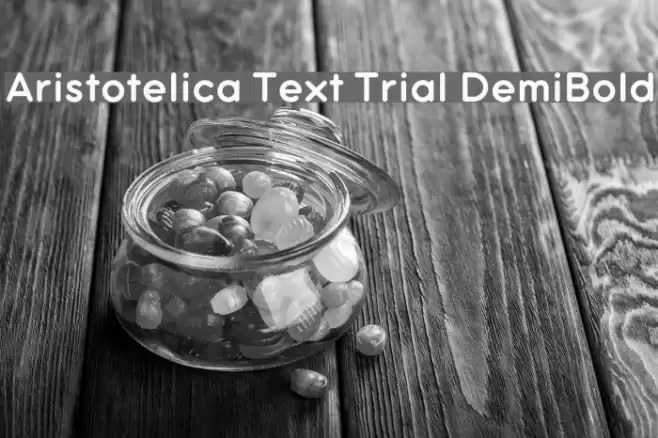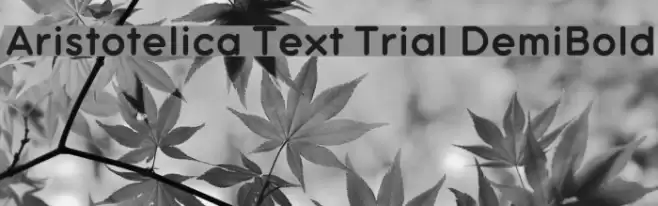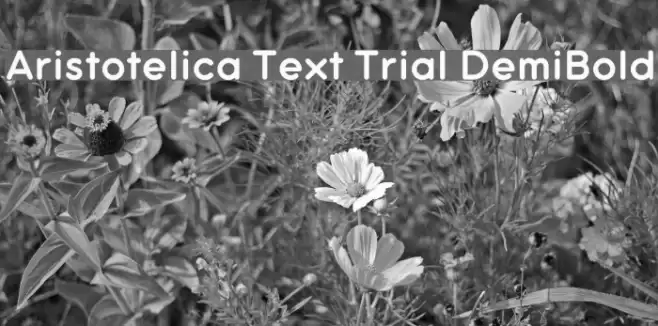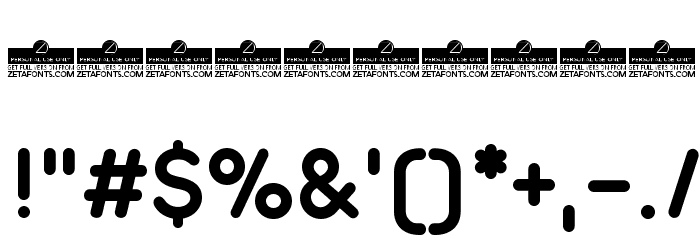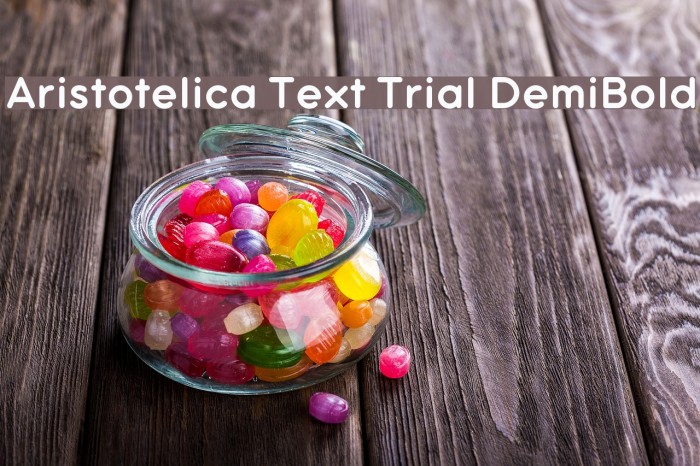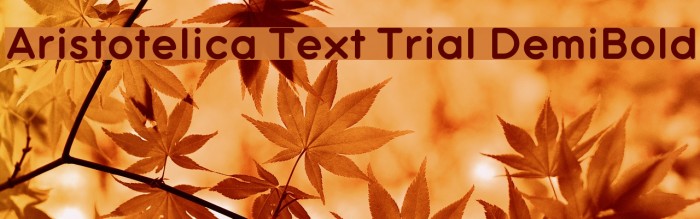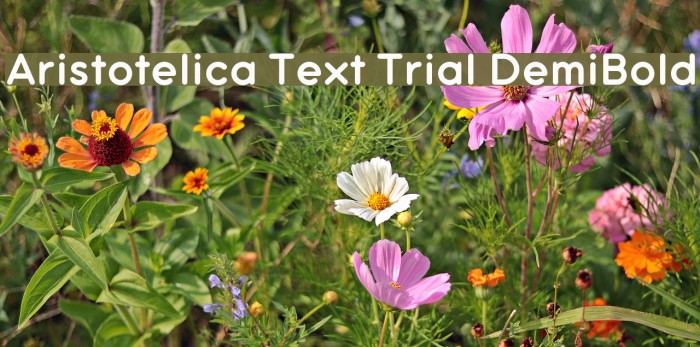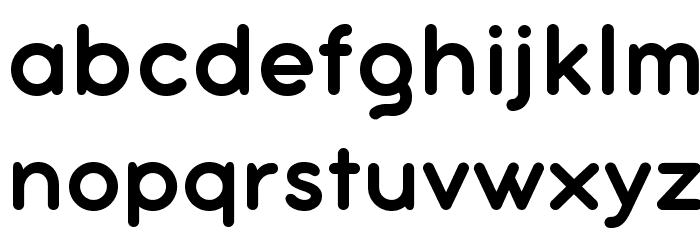
This typeface features a clean, modern aesthetic with rounded edges and a uniform stroke width, giving it a friendly and approachable appearance. The characters are well-proportioned, with a consistent height and width that enhances readability. The uppercase letters are bold and assertive, while the lowercase letters maintain a softer, more casual feel. The numerals and special characters are designed to complement the alphabet, ensuring a cohesive look across all text. This font is versatile, suitable for both digital and print media, and works well in various sizes.
A modern, rounded typeface with uniform stroke width and excellent readability from Uncategorized fonts.
- Proposed Projects: Ideal for branding, advertising, web design, and editorial projects where a modern and approachable look is desired.